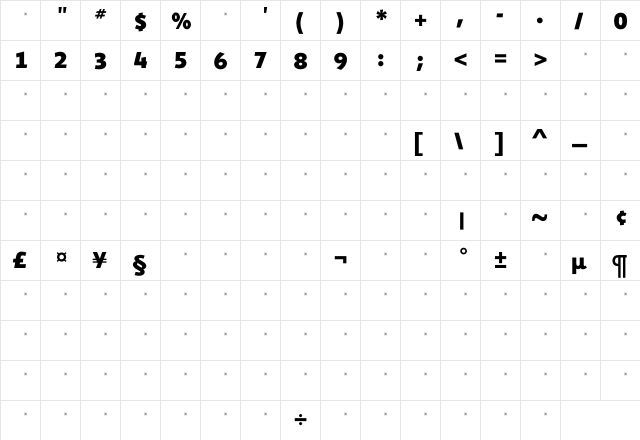
ShinnExtraBoldTab Regular
ShinnExtraBoldTab is a composed and adaptable typeface that performs quietly and consistently across a wide range of design contexts. The heavy weight commands attention and anchors typographic hierarchies.